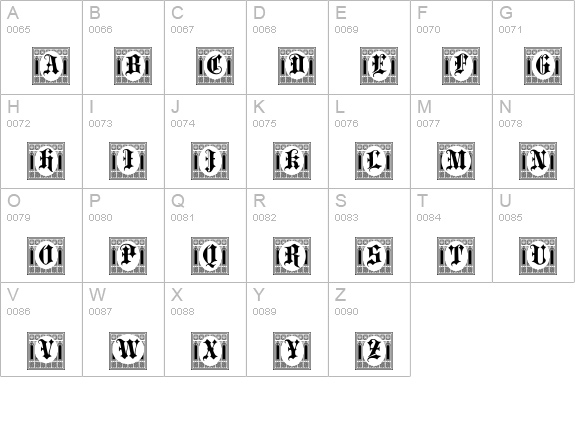
Portculliard Initials Font Details
Portculliard Initials font exudes elegance and sophistication with its intricate and ornate design. Each letter is meticulously crafted with detailed flourishes, adding a touch of old-world charm to any project. This decorative typeface is perfect for invitations, logos, and other designs where a touch of vintage glamour is desired. The Portculliard Initials font is a versatile choice that can be used to add a unique and stylish element to your creations. Whether you're working on wedding stationery or branding materials, this font is sure to make a statement. Best of all, Portculliard Initials font is available for free download at FontsMarket.com. So go ahead and elevate your designs with this exquisite typeface without breaking the bank. Download this stunning font today and let your creativity shine!